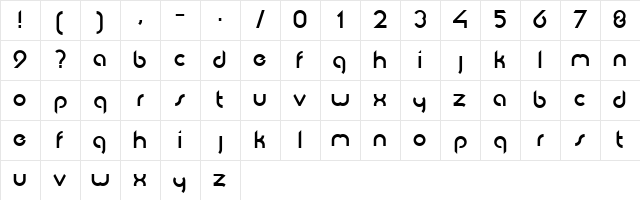
JK Abode Regular Demo Free Font
JK Abode Regular Demo
Style: Regular Demo
Foundry: Jacob King
Designer: Jacob King
Design Context for JK Abode
JK Abode is a composed and adaptable typeface that performs quietly and consistently across a wide range of design contexts.